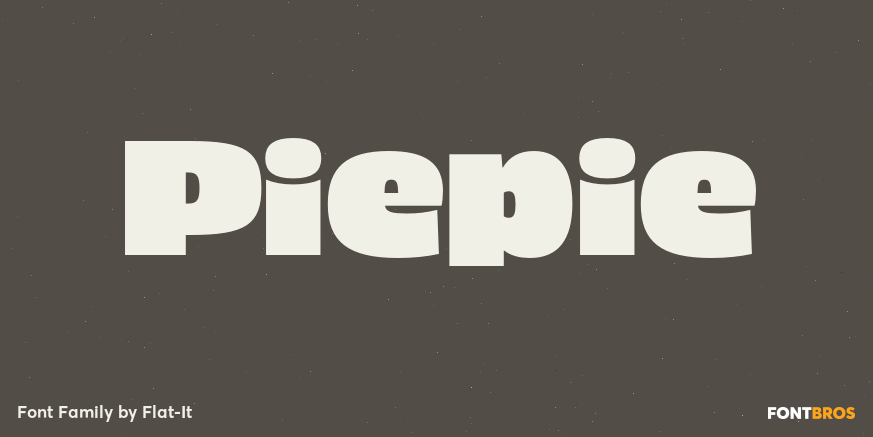
Piepie
About Piepie
Piepie is very heavy typeface for titlings and captions. OpenType Format (.otf) with 461 glyphs! Super mini ascenders and descenders! Ultra big x-height! Fatty weight yet Sharpy sharp detail! Bring it on Retina display! OpenType alternates for…